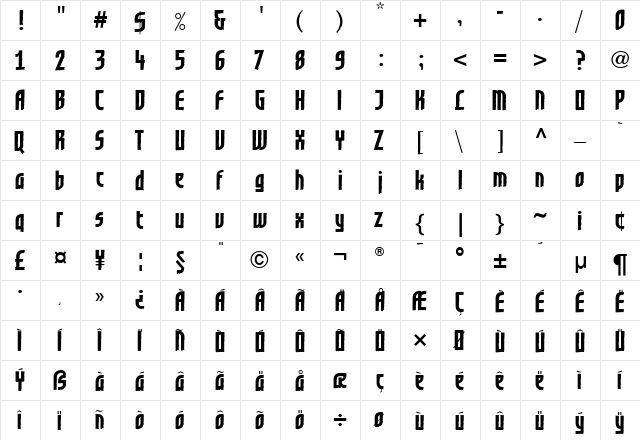
GrafiloneLLBold Medium Font Preview
GrafiloneLLBold Medium
Design Context for GrafiloneLLBold Typeface
GrafiloneLLBold is a composed and adaptable typeface that performs quietly and consistently across a wide range of design contexts. Its bold stroke weight gives it real presence on the page.
Pro Tip: Use GrafiloneLLBold in both headline and body roles to test its range before committing to a single application.